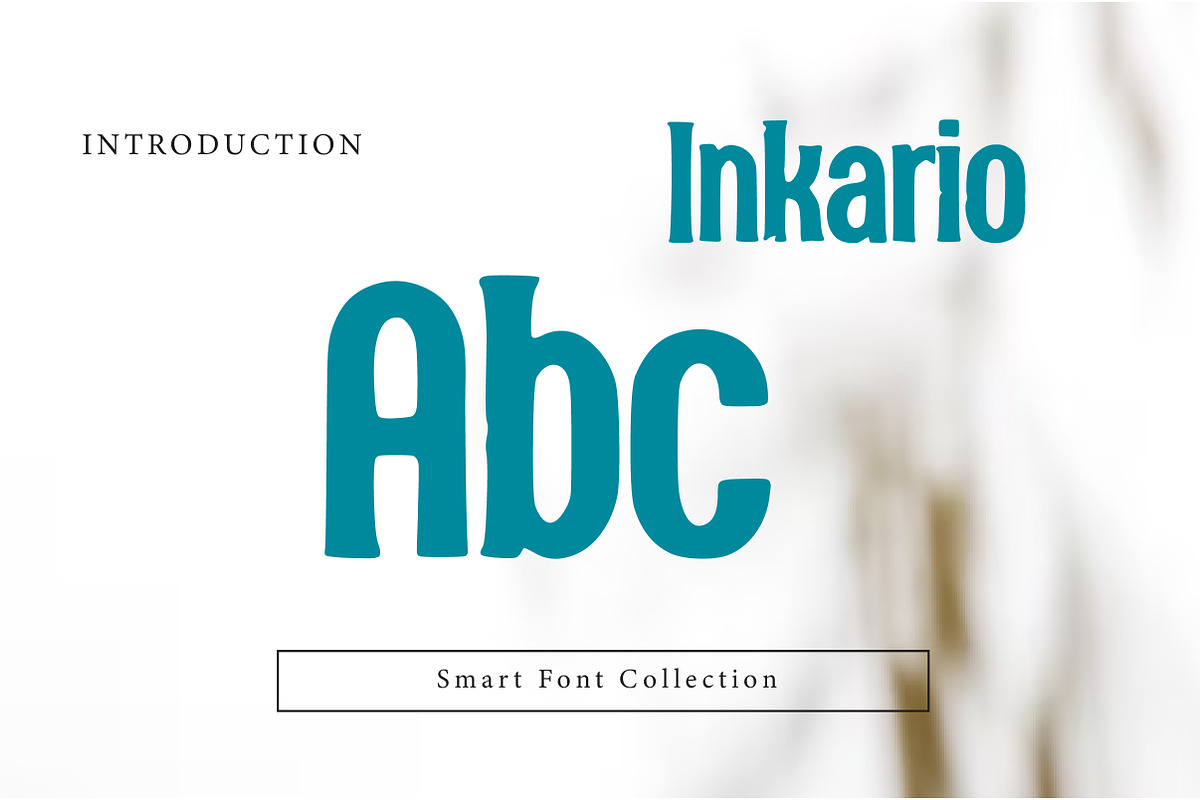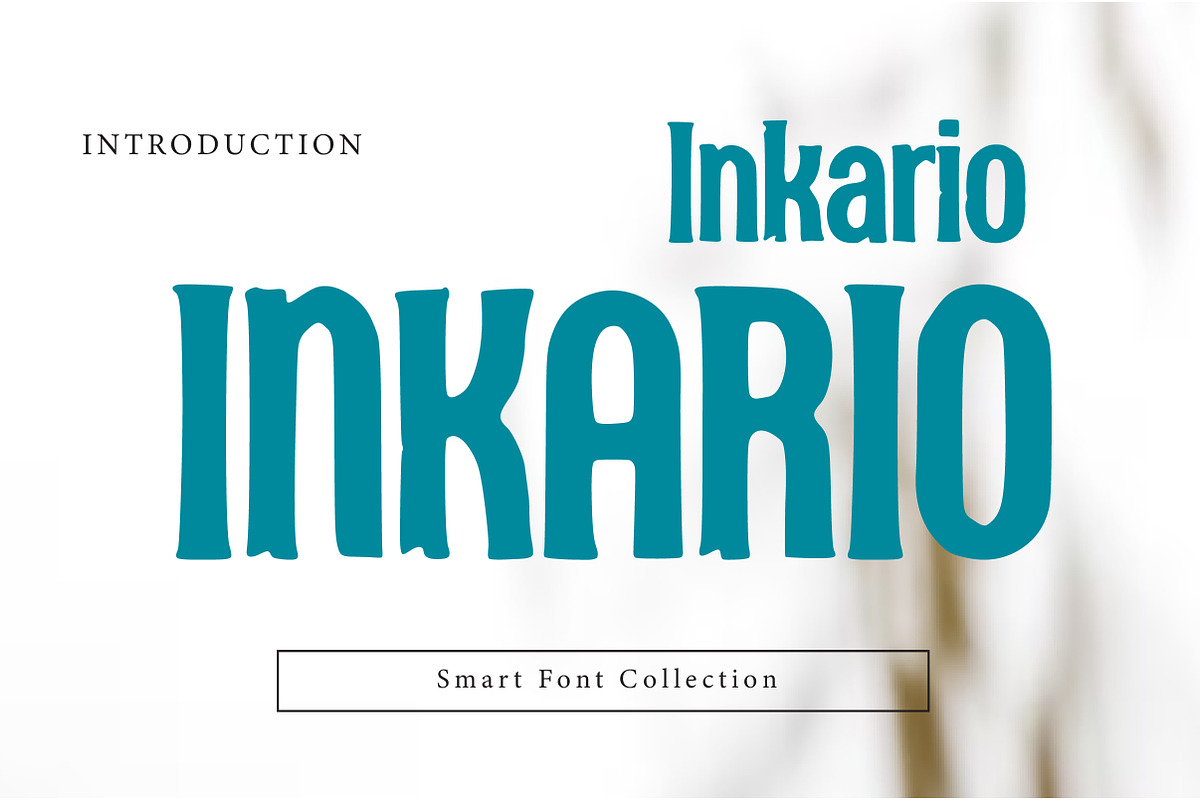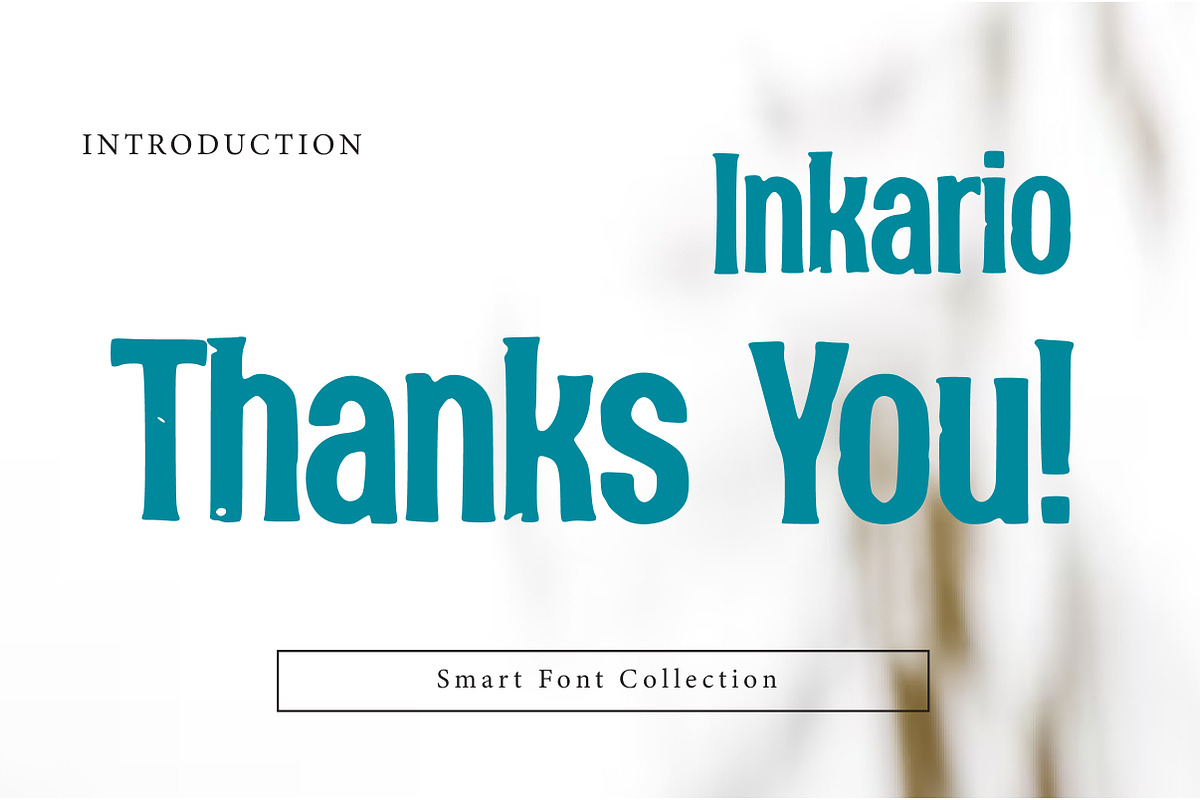
Inkario
Inkario is a bold, expressive handcrafted display font with organic ink textures, uneven edges, and a lively hand-drawn feel. Its playful yet confident character makes it ideal for logos, branding, posters, packaging, labels, headlines, social media graphics, and creative editorial designs. Inkario brings a natural, artistic energy that feels authentic and modern.